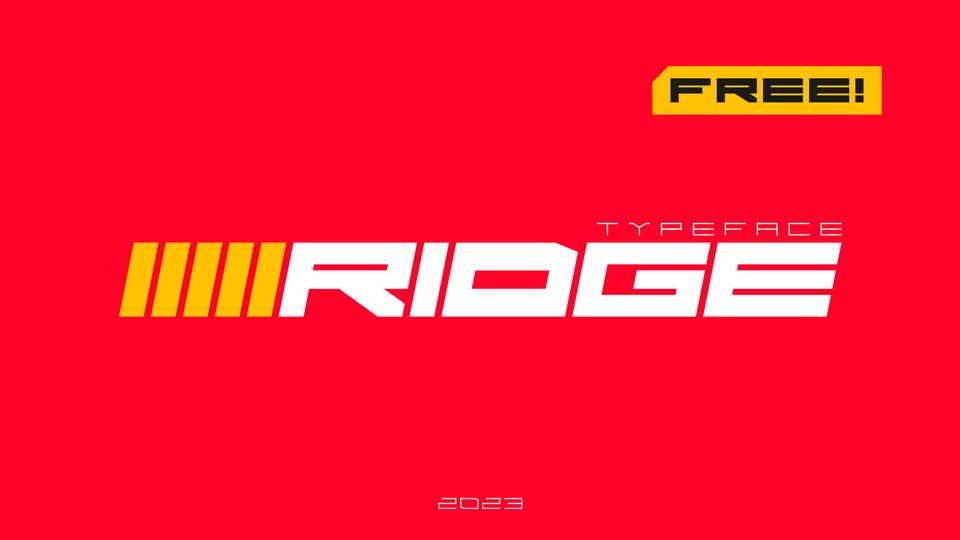
Download Ridge font, a bold and modern display typeface designed for headlines and titles. Ridge font features sharp and defined edges that give it a strong, confident look.
Designer: Unax Gómez